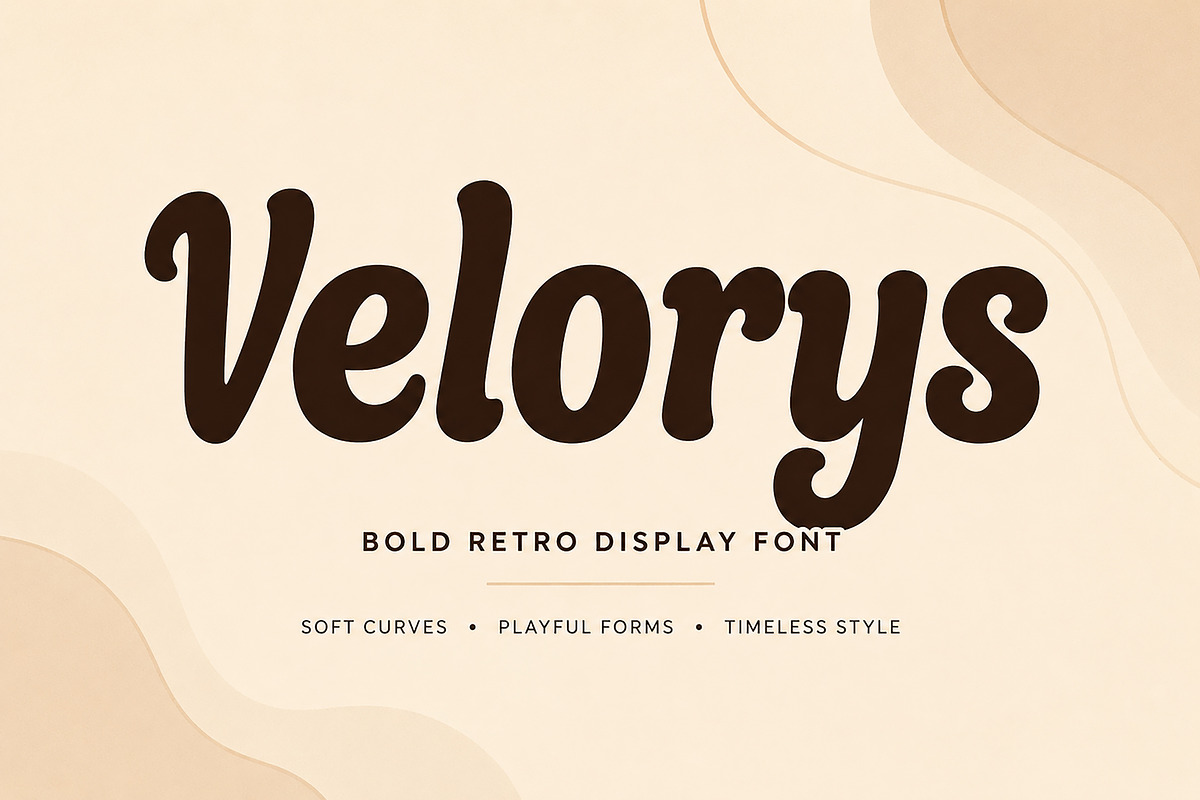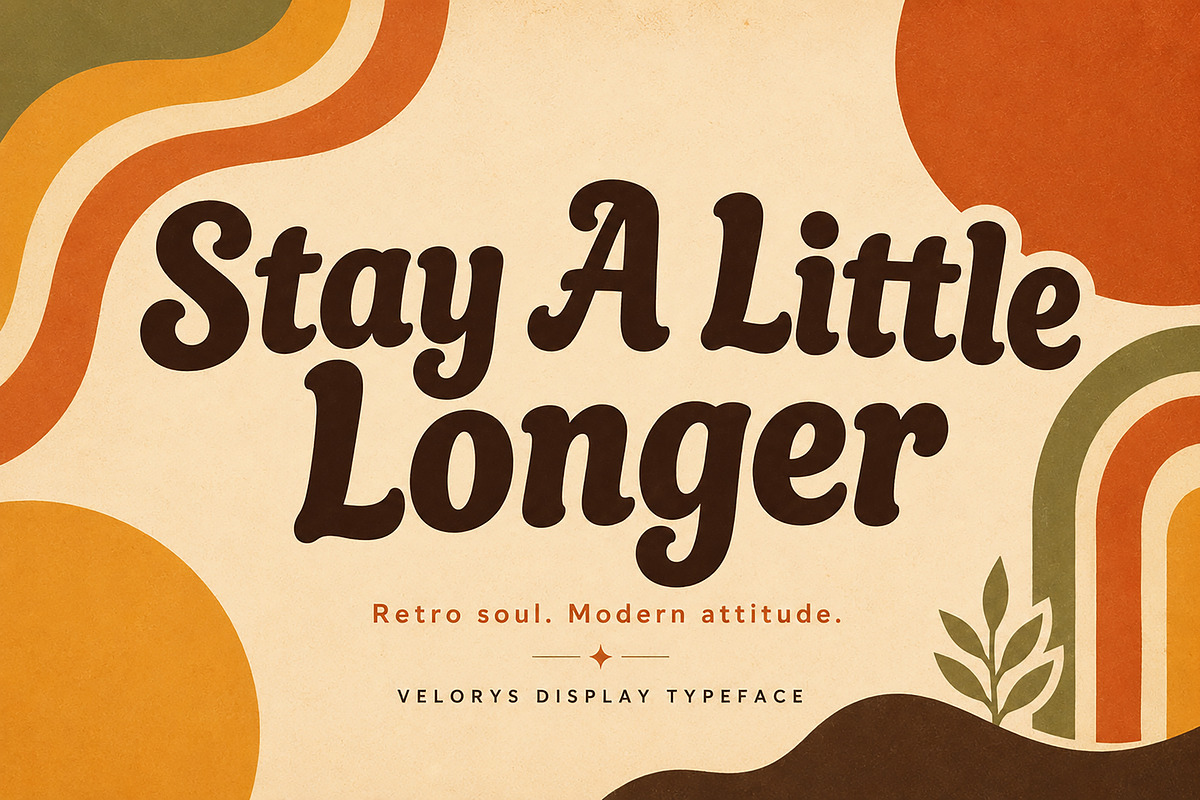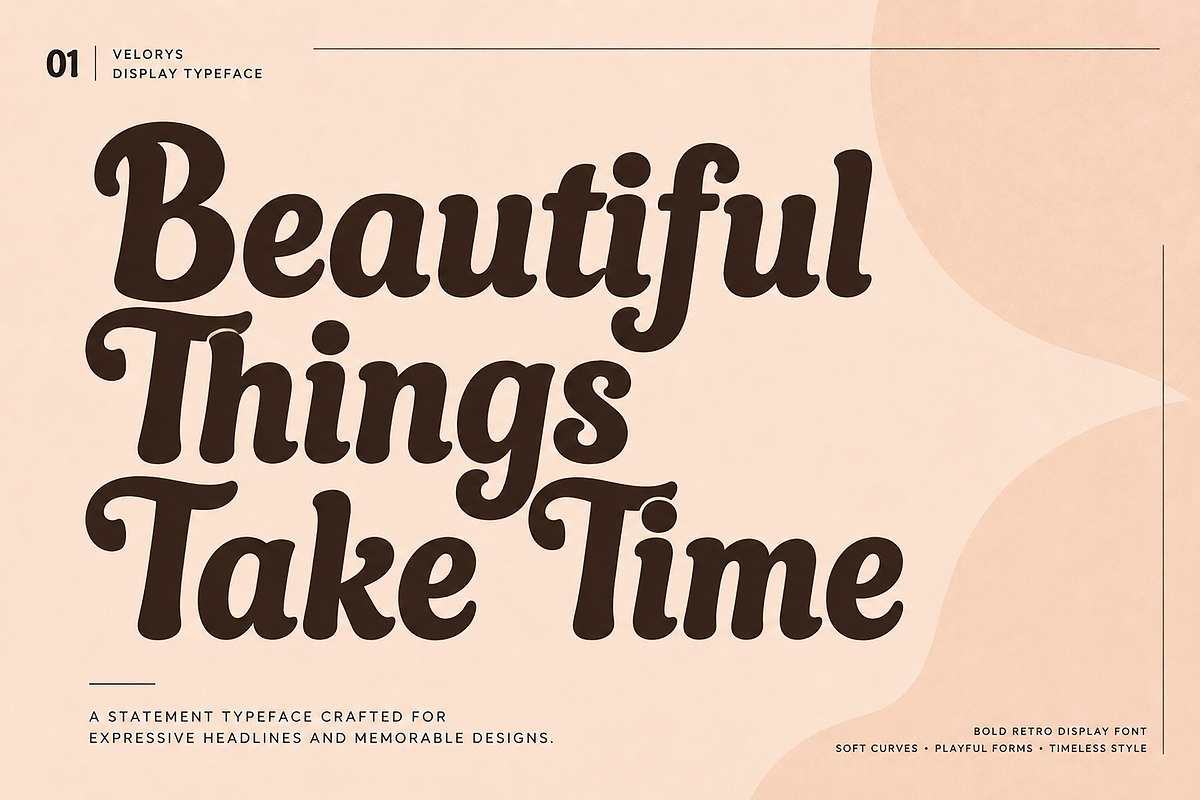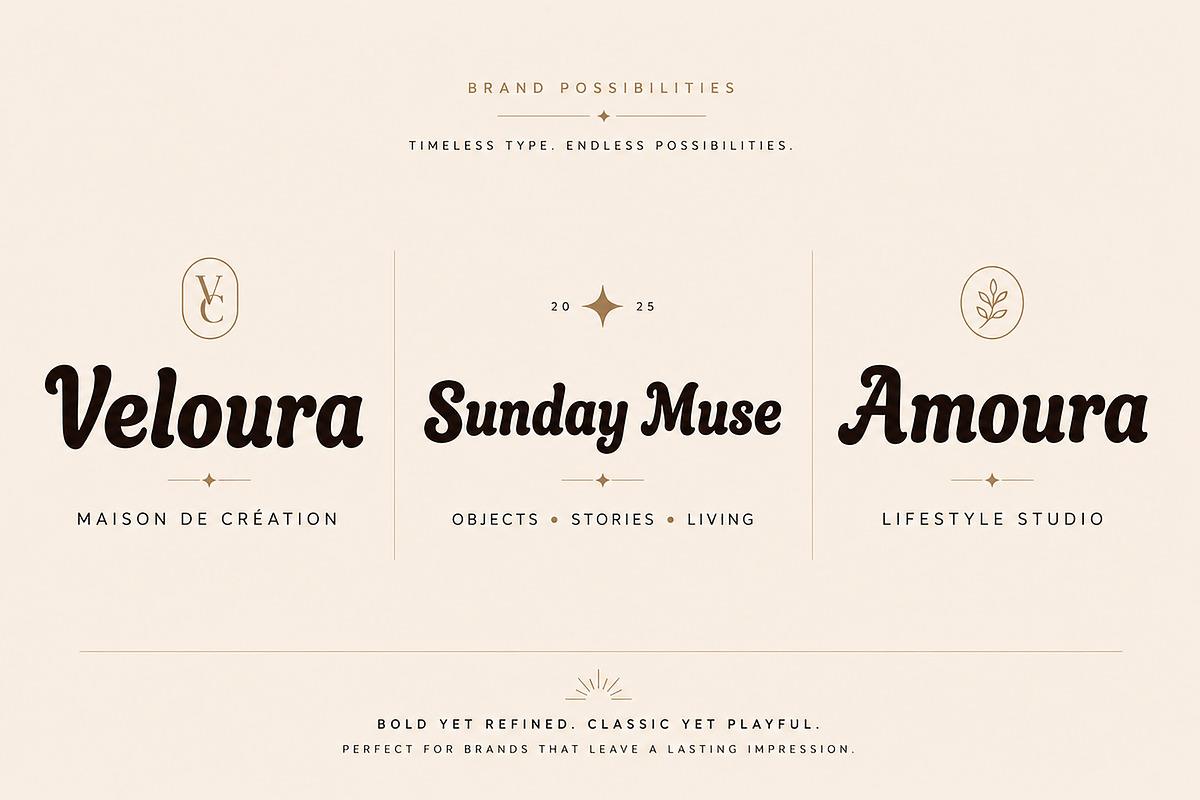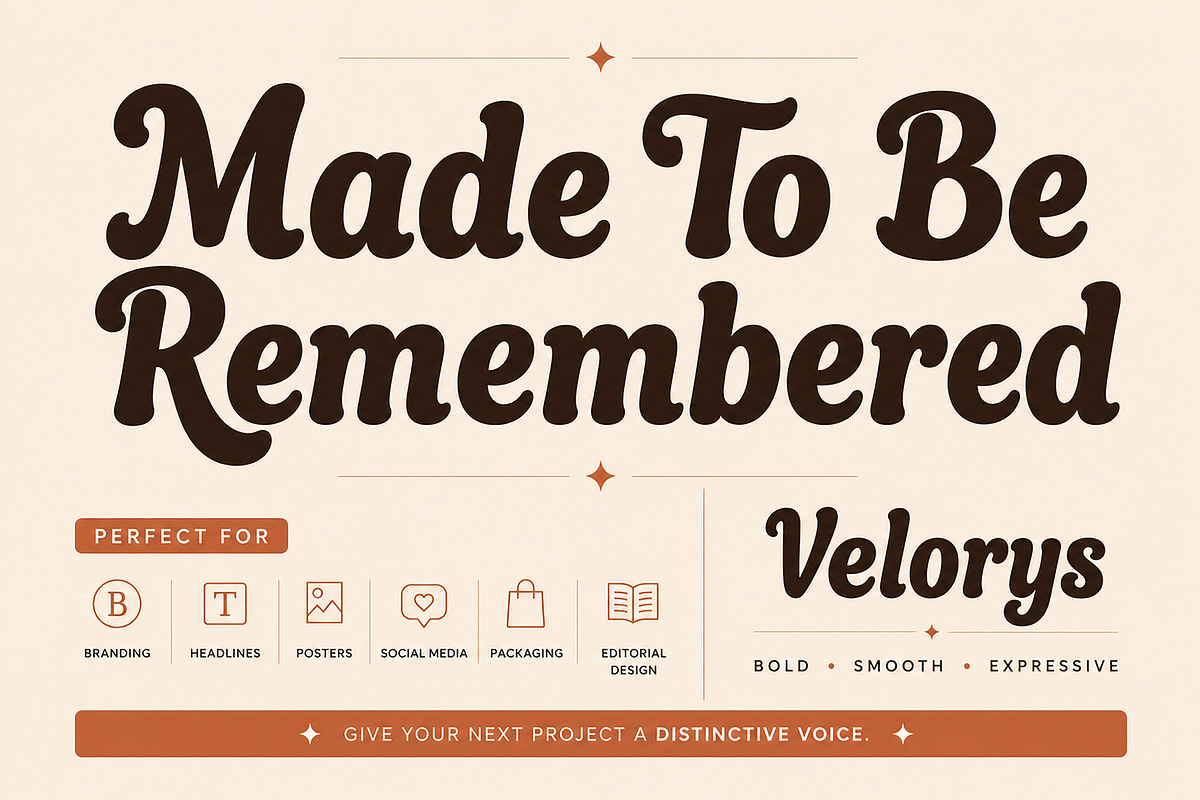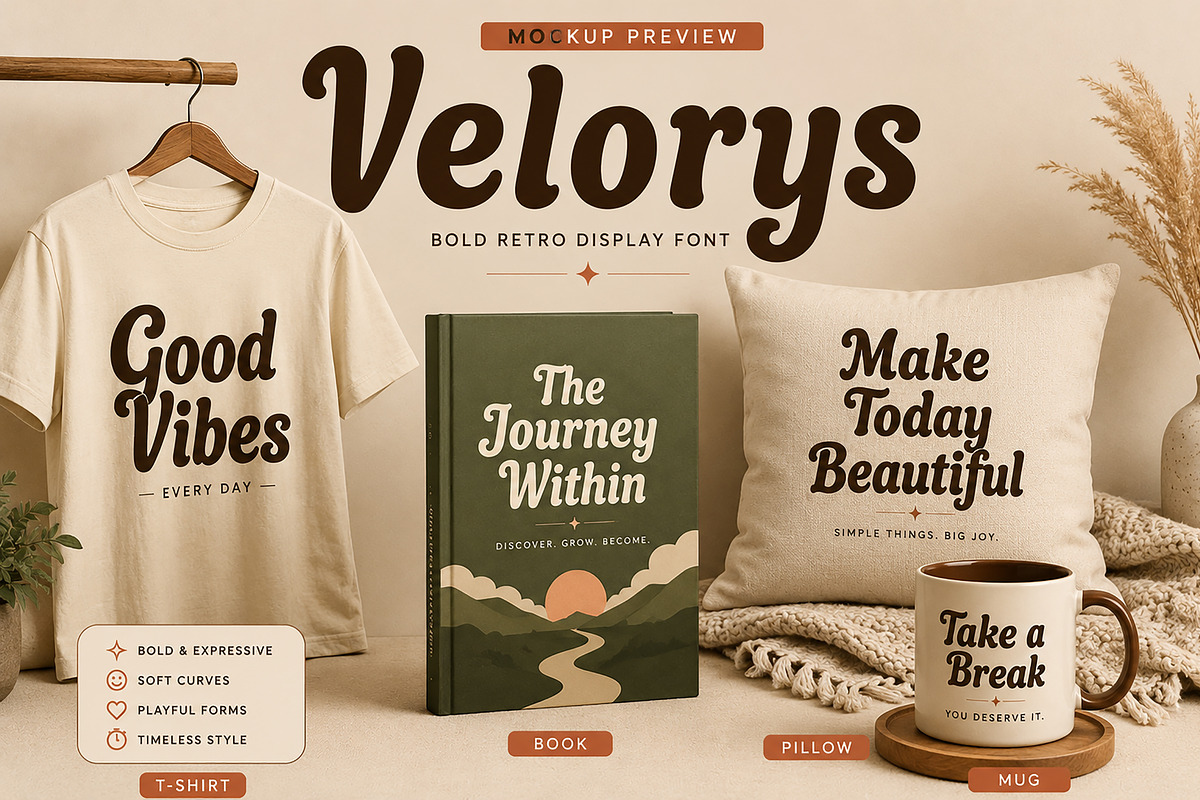
Velorys – Bold Retro Display Font
Meet Velorys, a bold and expressive retro display font crafted with smooth curves, playful forms, and a distinctive vintage-inspired personality. Its soft, flowing letterforms combine nostalgic charm with a modern approach, making Velorys an eye-catching choice for designs that deserve to be remembered.
Designed for strong visual impact, Velorys works beautifully across branding, logos, posters, packaging, editorial headlines, apparel, merchandise, social media graphics, book covers, and creative advertising. Its bold personality makes even simple words feel like custom typography.
Whether you're creating a nostalgic 70s-inspired design, a stylish lifestyle brand, or a contemporary project with a retro twist, Velorys gives your work a warm, confident, and memorable voice.
Logos & Branding • Posters & Headlines • Packaging Design • Social Media • Editorial Design • Book Covers • T-Shirts & Apparel • Merchandise • Lifestyle Brands • Creative Advertising
Bold retro-inspired display style
Smooth and expressive letterforms
Soft, playful curves
Strong headline presence
Vintage character with a modern feel
Great for both branding and display typography
Give your next creative project a distinctive voice with Velorys.